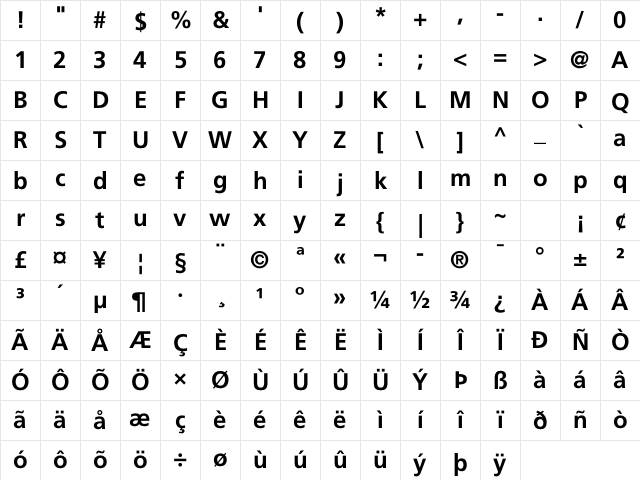
Complete Frutiger LT Com 65 Bold glyph index. Displaying only characters natively supported by Frutiger LT Com 65 Bold font.
Frutiger LT Com is a composed and adaptable typeface that performs quietly and consistently across a wide range of design contexts. Its bold stroke weight gives it real presence on the page.